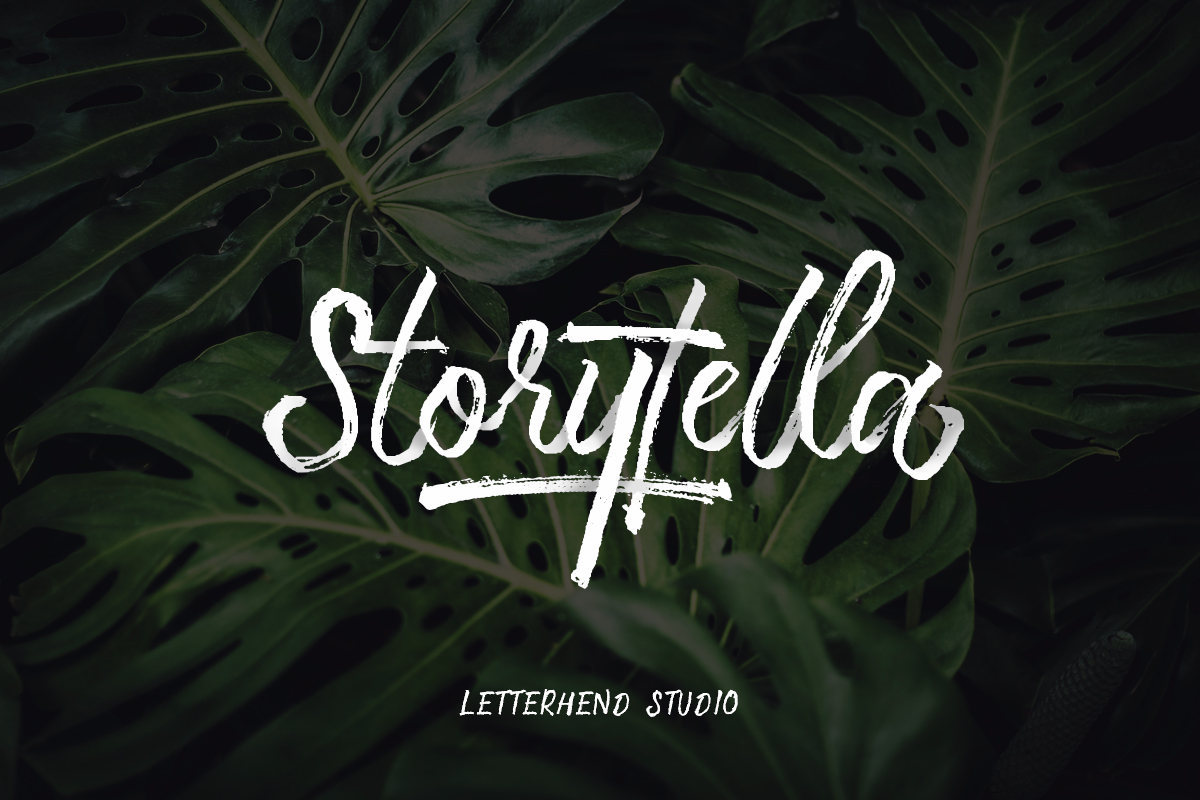
Storytella Brush Font
Storytella Brush Font is perfect for enchanting children's book illustrations, magical fairy tale covers, whimsical storytelling blog headers, creative writing workshop materials, imaginative library event posters, narrative podcast cover art, fantasy novel typography, artistic book publishing projects, dreamy bedtime story apps, and captivating creative writing course promotions. This narrative typeface brings storytelling magic to children's entertainment companies, creative writing schools, imagination-focused educational programs, story-driven marketing campaigns, and enchanting literary festival materials.
Storytella Brush Font is exciting because it captures the enchanting magic and narrative charm of storytelling through its artistically hand-brushed letterforms. The font features flowing, expressive characters with storybook proportions and whimsical details that evoke the feeling of turning pages in a beloved fairy tale, the warmth of bedtime stories, and the creative energy of imaginative narratives coming to life. Its distinctive construction demonstrates storytelling artistry with carefully preserved brush strokes that create an immediate sense of wonder and narrative authenticity. The font's storytelling presence and magical authenticity make it perfect for brands seeking to communicate imagination, narrative charm, and creative storytelling in their visual communications.
Storytella Brush Font family includes various narrative styles: Light Brush, Regular Brush, Bold Brush, Flowing Brush, Whimsical Brush, Magical Brush, Story Brush, Dream Brush, Condensed Brush, Extended Brush, Fantasy Brush, and Enchanted variants. Each family member maintains the core storytelling DNA while offering different brush textures for diverse narrative design applications. The comprehensive font collection ensures consistent magical branding across storytelling campaigns, creative writing products, and imaginative communication materials.
Storytella Brush Font Free Download offers designers an exceptional opportunity to infuse their projects with authentic storytelling magic and narrative charm. This remarkable typeface seamlessly blends artistic brush techniques with contemporary functionality, making it ideal for both digital storytelling platforms and premium narrative-themed print materials. The font's carefully preserved brush details and storytelling rhythm create memorable visual experiences that resonate with audiences seeking imagination, creative expression, and enchanting narrative experiences.
Whether you're creating storytelling brand identities, designing imaginative marketing materials, developing creative website headers, or crafting magical promotional campaigns, Storytella Brush Font delivers outstanding narrative appeal and storytelling authenticity. The font's distinctive whimsical personality excels in storytelling logos, creative packaging design, imaginative applications, and literary projects where narrative magic and artistic expression are essential.